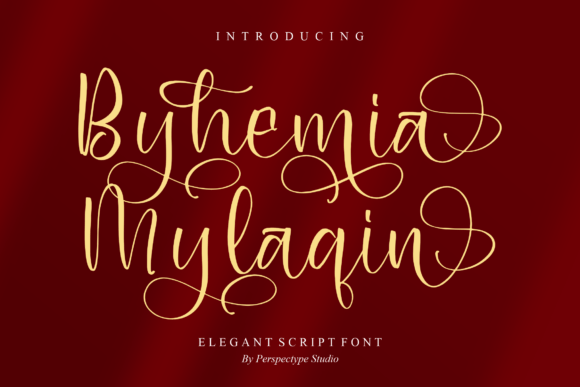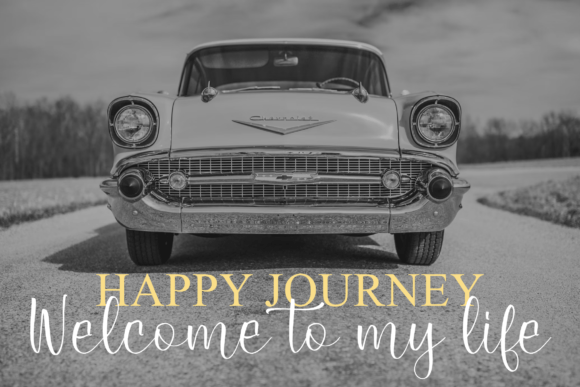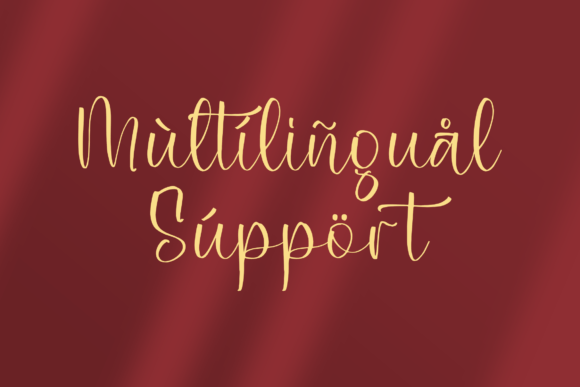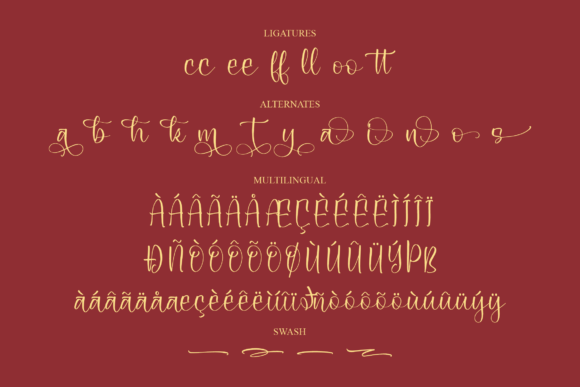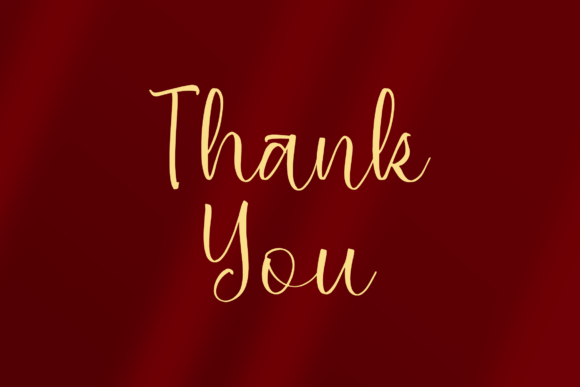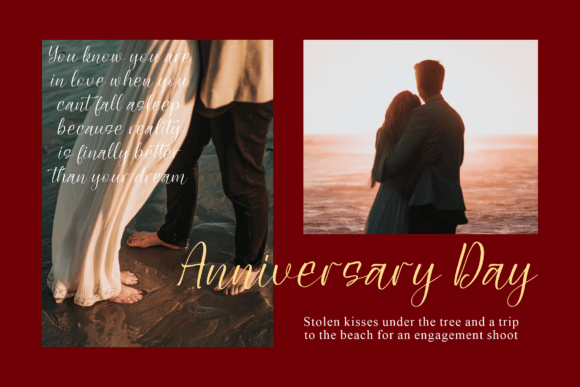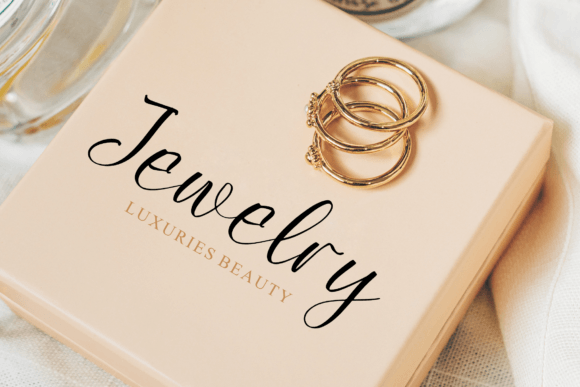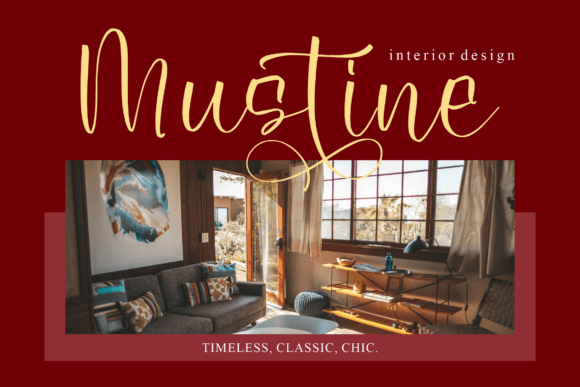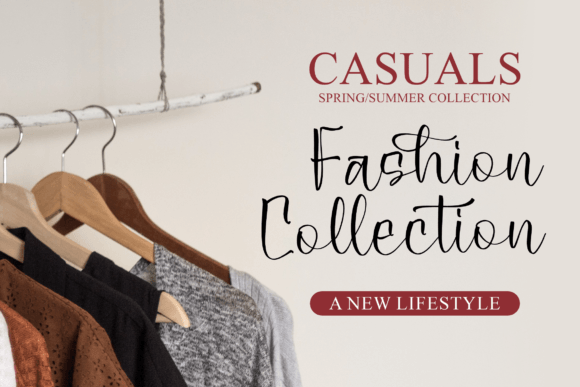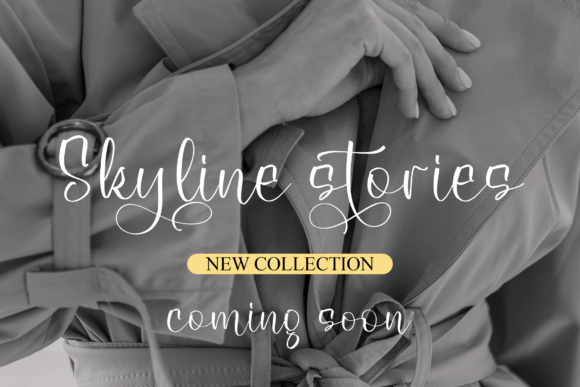
Byhemia Mylaqin Font
About Byhemia Mylaqin Font
Byhemia Mylaqin is a dazzling script font. This font is neatly crafted and highly detailed. Whatever the topic, this font will be a wonderful asset to your font library, as it has the potential to enhance any creation.